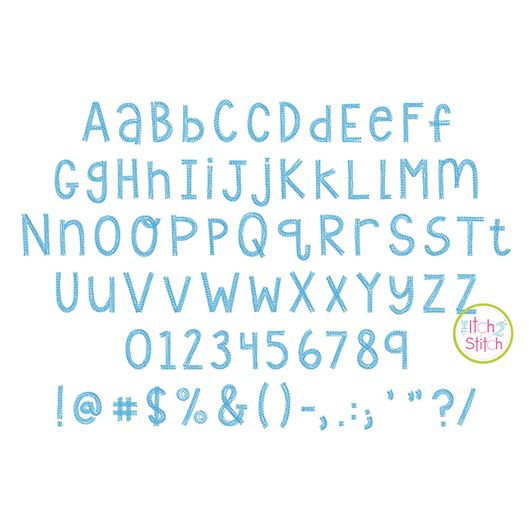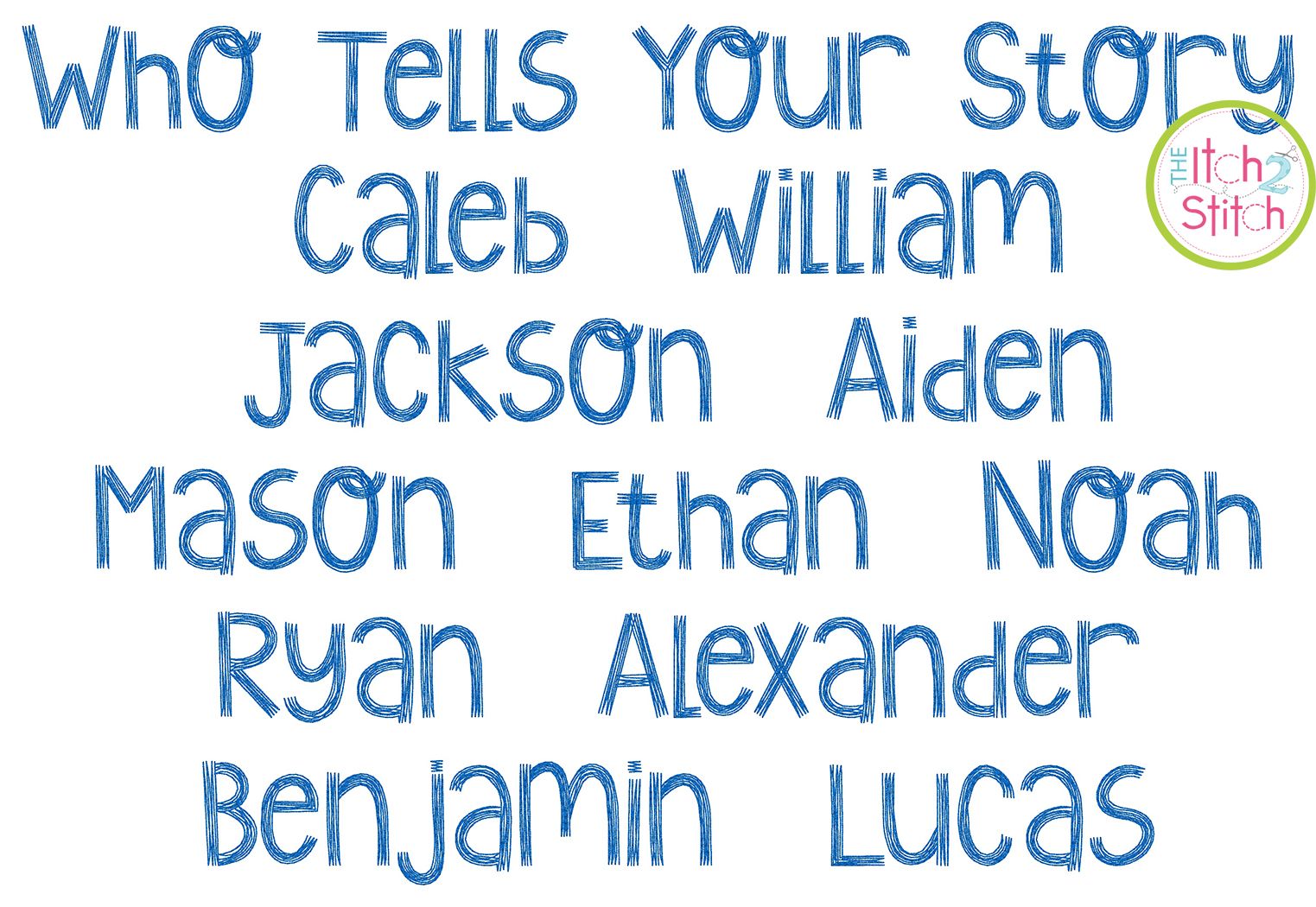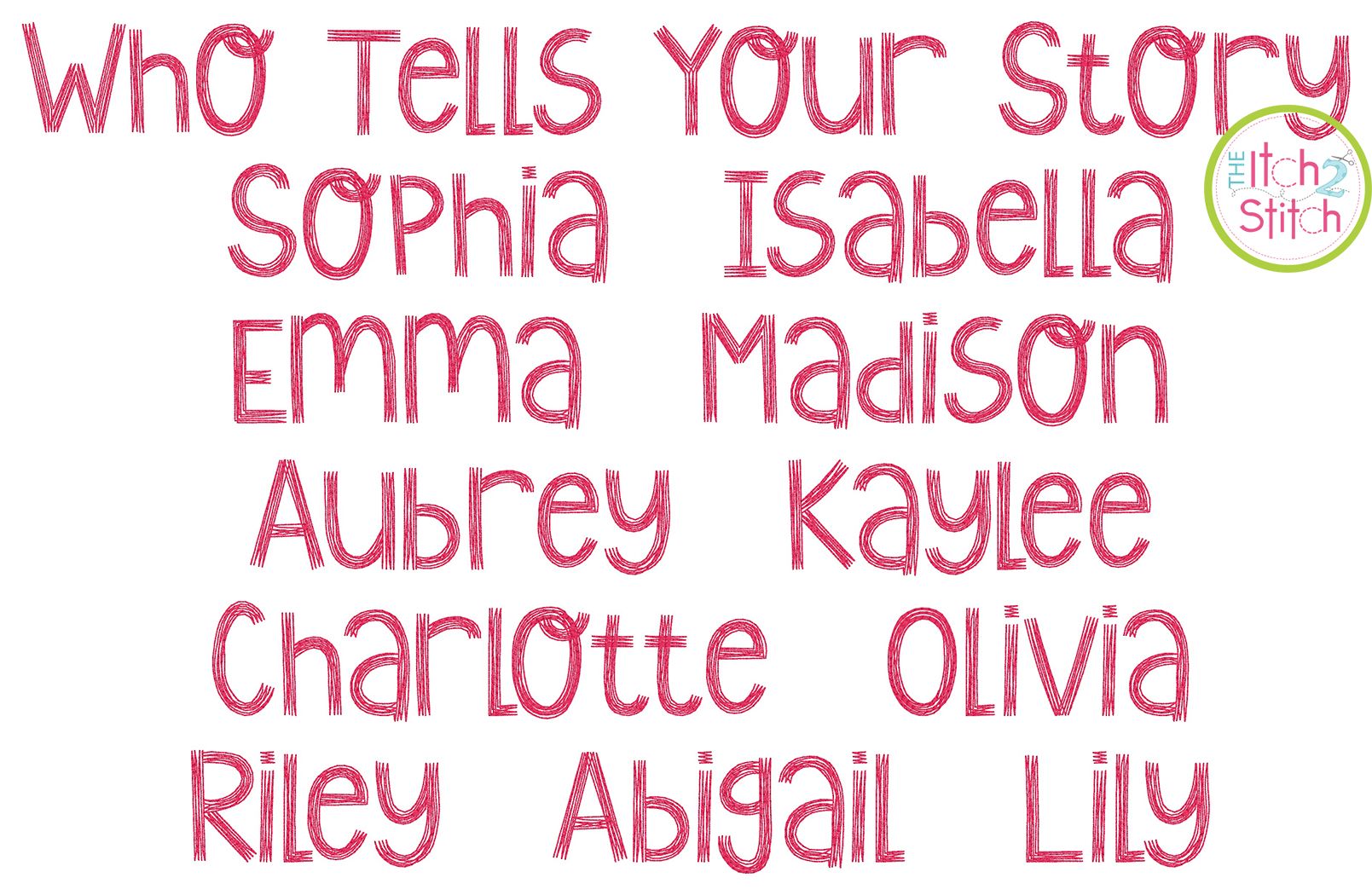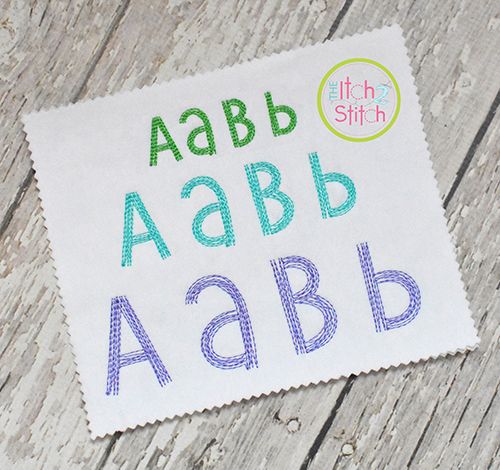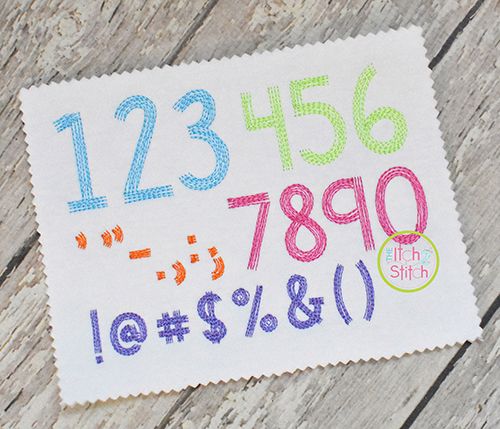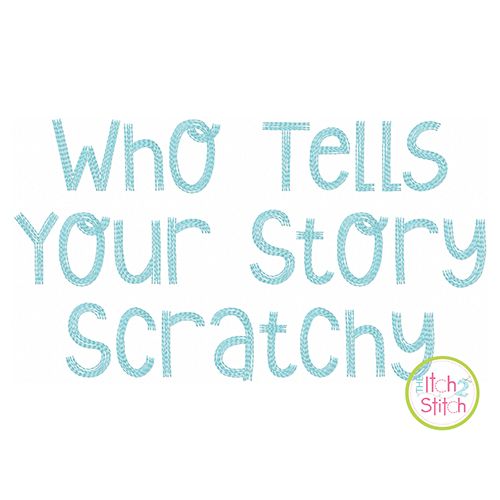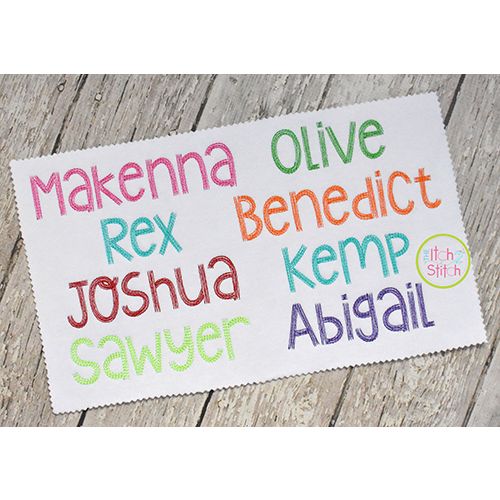
Who Tells Your Story Scratchy Bean Stitch Embroidery Font
You will receive all letters Aa-Zz letters, numbers and punctuation (79 files) in five sizes. Our Scratchy style is seven strokes of a double running stitch. The size of the font is based on the capital A, and everything else is scaled appropriately according to the original artwork. In some cases the lowercase letters are bigger than the capital letters - that is the quirky nature of this font.